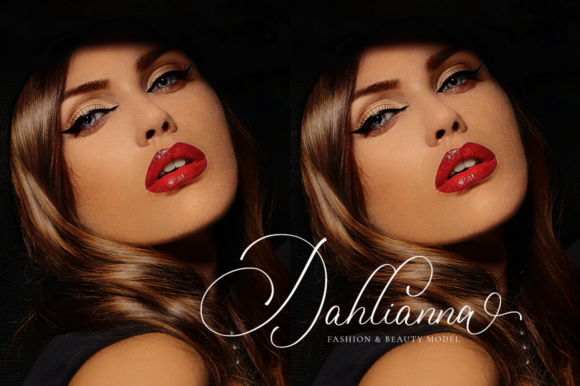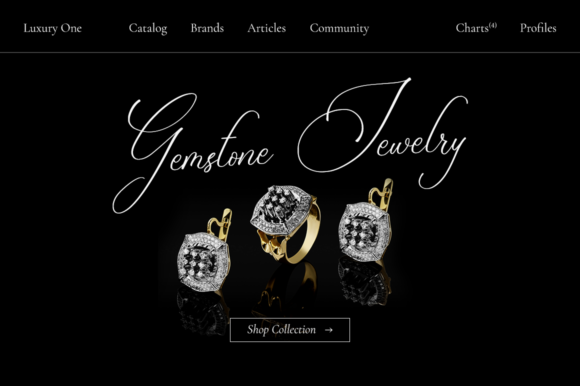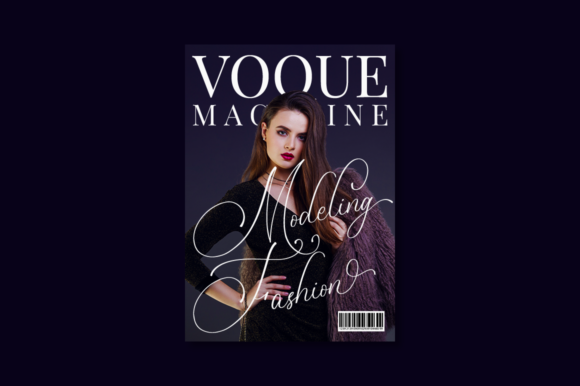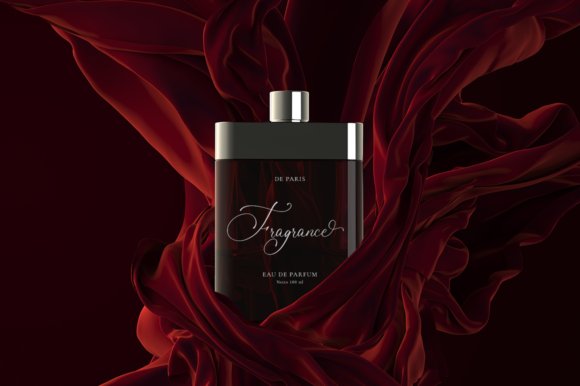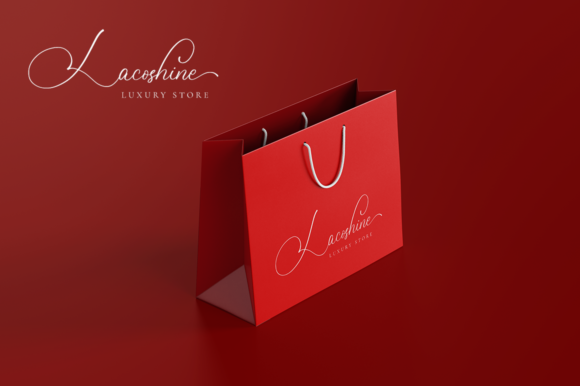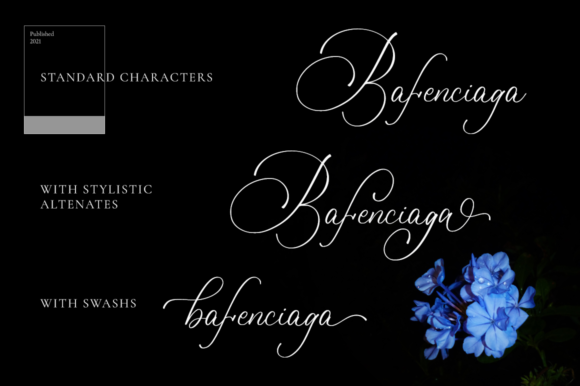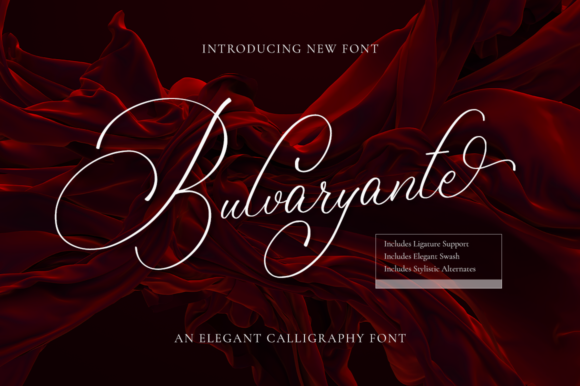
Bulvaryante Font: Elevate Your Designs with Luxury and Elegance
In the world of typography, fonts play a crucial role in conveying the tone and aesthetic of a design project. For designers and crafters seeking to add a touch of luxury and sophistication to their work, the Bulvaryante font is an exceptional choice. This beautiful, light handwritten font boasts a unique feel and stunning impact, making it perfect for a wide range of design applications.
What Makes Bulvaryante Font Special?
Bulvaryante is more than just a font – it’s an experience. Its elegant, handwritten strokes exude a sense of refinement and poise, instantly elevating any design project to new heights. Whether you’re working on a branding campaign, packaging design, or digital project, Bulvaryante’s distinctive charm is sure to captivate your audience.
Key Features of Bulvaryante Font
• Unique and Luxurious Feel: Bulvaryante’s design is characterized by its light, airy texture and beautiful handwritten strokes, giving it a luxurious feel that’s hard to resist.
• PUA Encoding: This font is PUA (Private Use Area) encoded, which means you can easily access a wide range of glyphs and ligatures, allowing for greater creative flexibility.
• Ease of Use: With Bulvaryante, you can effortlessly incorporate stunning glyphs and ligatures into your designs, making it simple to achieve a professional, high-end look.
• Versatility: From elegant headings and titles to sophisticated body text, Bulvaryante’s versatility makes it suitable for a variety of design projects.
Bulvaryante offers numerous benefits for designers and crafters looking to enhance their work with a touch of elegance:
• Time-Saving: With its PUA encoding and extensive range of glyphs and ligatures, Bulvaryante saves you time and effort, allowing you to focus on the creative aspects of your project.
• Consistency: The font’s consistent and harmonious design ensures that your work maintains a cohesive look, reinforcing your brand’s identity.
• Impact: Bulvaryante’s unique feel and stunning impact are sure to leave a lasting impression on your audience, setting your design apart from the competition.
Tips and Tricks for Getting the Most Out of Bulvaryante
To maximize the impact of Bulvaryante, consider the following tips:
• Pair with Complementary Fonts: Combine Bulvaryante with complementary fonts to create visual interest and add depth to your design.
• Experiment with Ligatures: Take advantage of Bulvaryante’s ligatures to add a touch of sophistication and elegance to your text.
• Play with Colors: Don’t be afraid to experiment with different colors and gradients to make your design pop.
In conclusion, the Bulvaryante font is a game-changer for designers and crafters seeking to add a touch of luxury and sophistication to their work. With its unique feel, stunning impact, and ease of use, Bulvaryante is the perfect choice for a wide range of design projects. Whether you’re looking to create elegant headings, sophisticated body text, or eye-catching titles, Bulvaryante is sure to exceed your expectations.